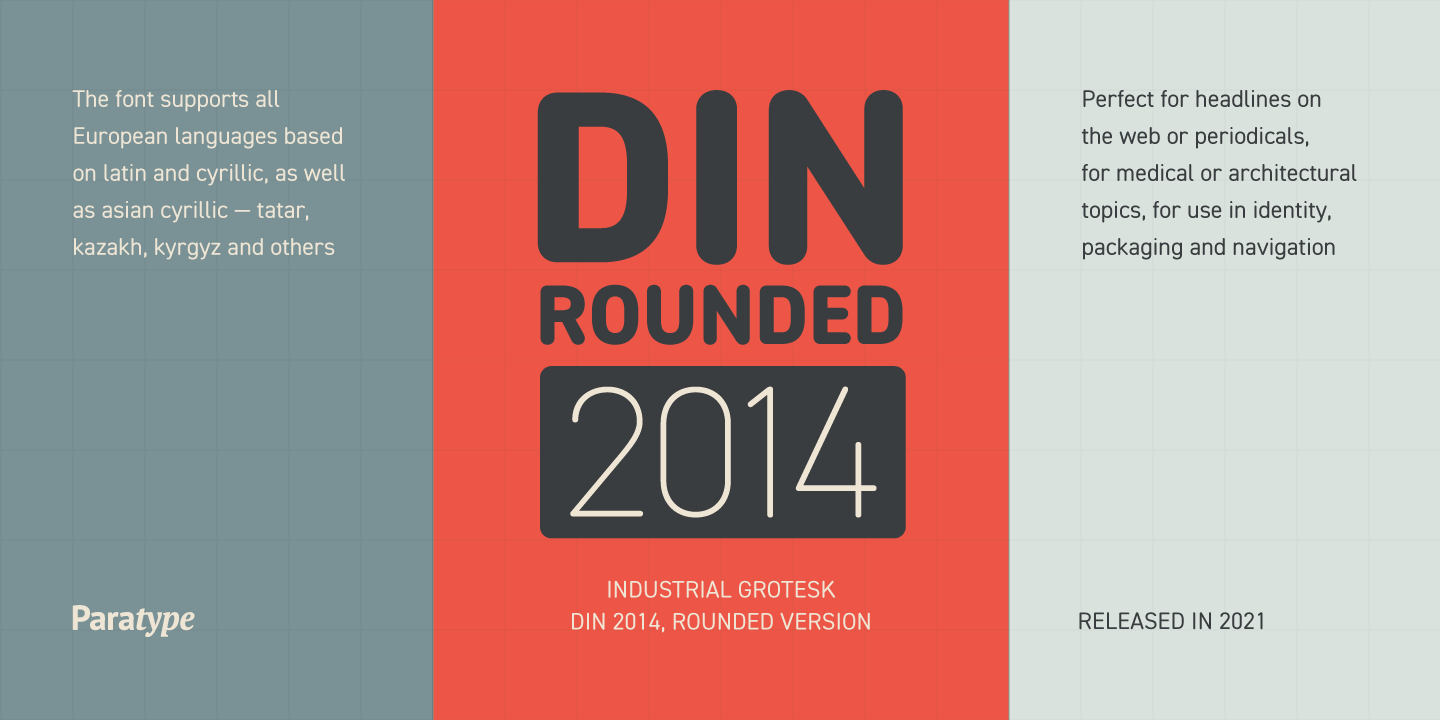
DIN 2014 Rounded Font is perfect for modern tech interfaces, friendly corporate branding, approachable signage systems, contemporary web design, user-friendly mobile applications, progressive industrial design, accessible public communications, innovative product packaging, forward-thinking marketing campaigns, and human-centered design projects. This versatile typeface creates approachable technical atmosphere in both digital interfaces and progressive print applications.
What makes DIN 2014 Rounded Font exciting is its perfect fusion of German engineering precision with contemporary humanist warmth through rounded character endings. The font features systematic letterforms with softened edges and approachable geometry that maintain technical reliability while adding friendly accessibility. Its balanced design establishes an atmosphere of progressive professionalism and user-friendly sophistication that resonates with modern audiences seeking both functionality and approachability.
DIN 2014 Rounded Font family includes systematic variations: Light, Regular, Medium, Bold, and Black versions, each with rounded alternates and technical character sets. Each variant maintains the font's technical integrity while providing designers with approachable options for creating user-friendly typography systems and progressive communication materials.
This exceptional technical typeface brings authentic engineering credibility to projects requiring approachable presentation. Whether you're designing tech interfaces, progressive branding, or user-centered marketing materials, DIN 2014 Rounded Font Free Download delivers outstanding functionality and contemporary appeal. The font's rounded proportions and technical details ensure optimal user experience across various modern applications.
Tech companies and progressive brands recognize how DIN 2014 Rounded Font perfectly balances German precision with contemporary accessibility requirements. Its technical foundation combined with humanist refinements makes it essential for modern interface and progressive design projects. Download today and modernize your designs with this exceptionally balanced technical typography.